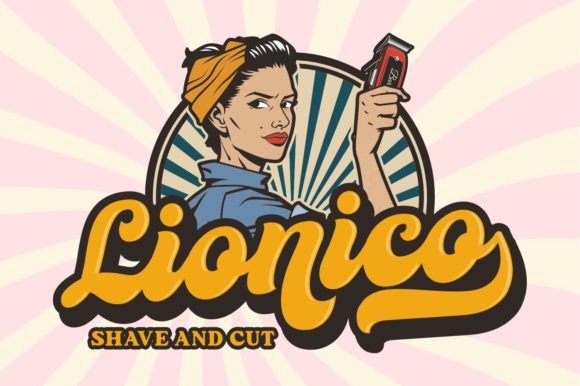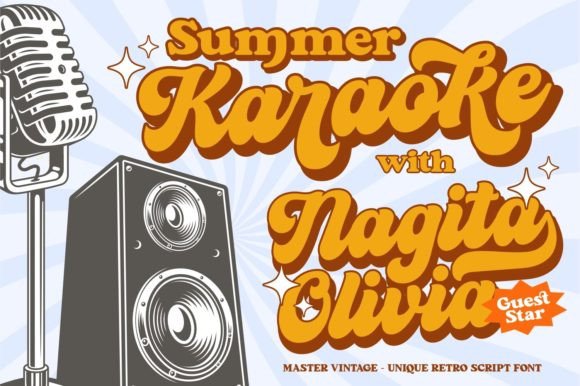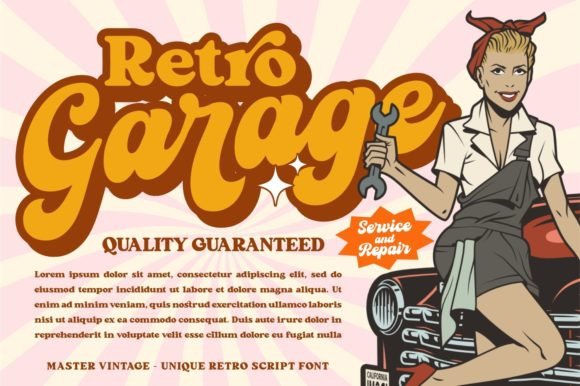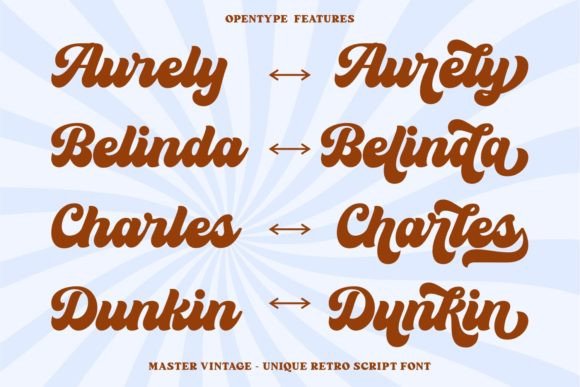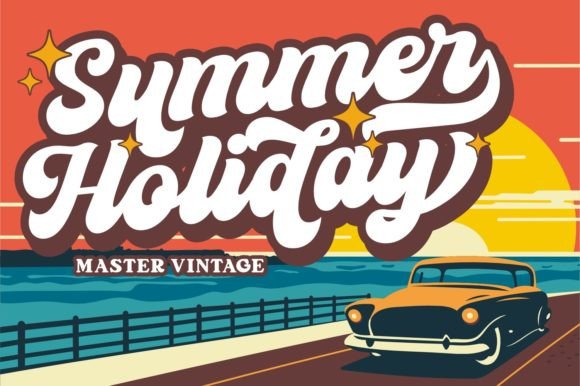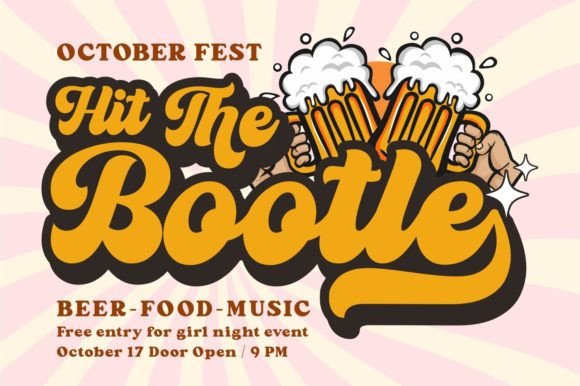
Introduction to Master Vintage Font
Master Vintage is a cool and retro script display font that takes you back in time.
With its bold strokes and vintage-inspired letterforms, it captures the essence of the past while adding a modern twist Perfect for branding, packaging, or poster designs, Master Vintage brings a touch of nostalgia and authenticity to your creative projects.
Key Features of Master Vintage Font
Why Choose Master Vintage Font?